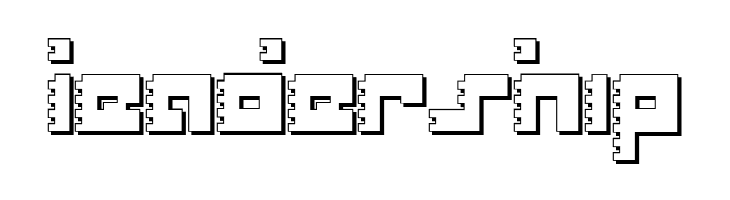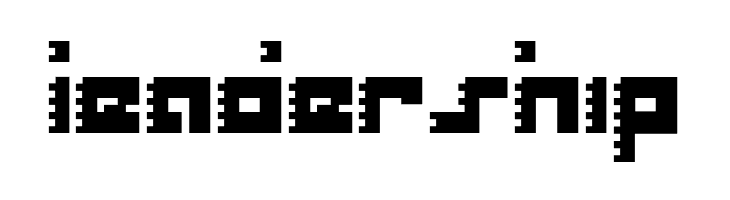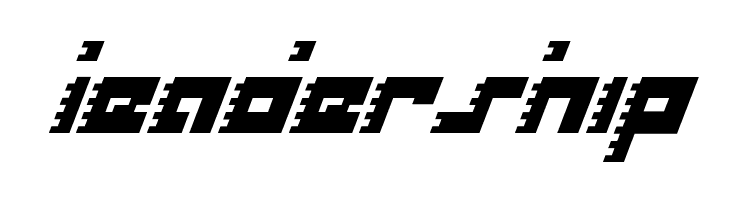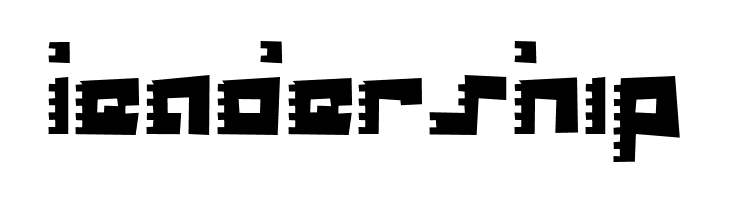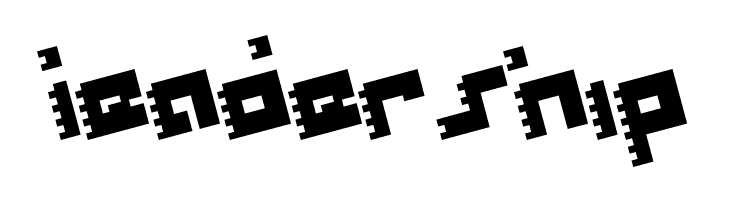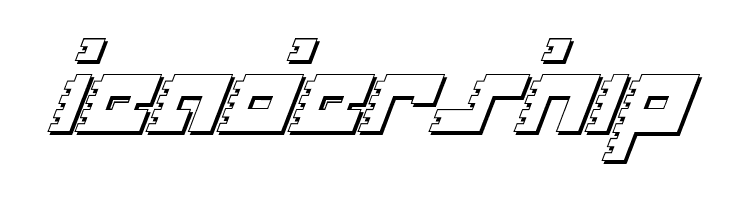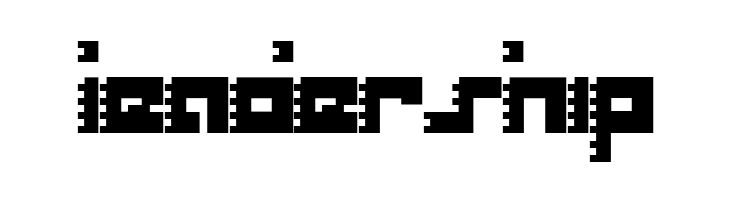
• Roid Rage Shadow
A bold, blocky font with a retro shadow effect, perfect for eye-catching displays.
• Roid Rage
• Roid Rage Italic
A bold, italic, pixelated font with a retro digital aesthetic.
• Roid Rage Rough
A bold, pixelated font with a rugged, digital aesthetic.
• Roid Rage Rotate
A bold, pixelated font with a retro, digital aesthetic.
• Roid Rage Shadow Italic
A bold, angular font with a shadow effect and italicized style, perfect for tech-inspired designs.
• Roid Rage Condensed
A bold, pixelated font with a condensed, digital style.